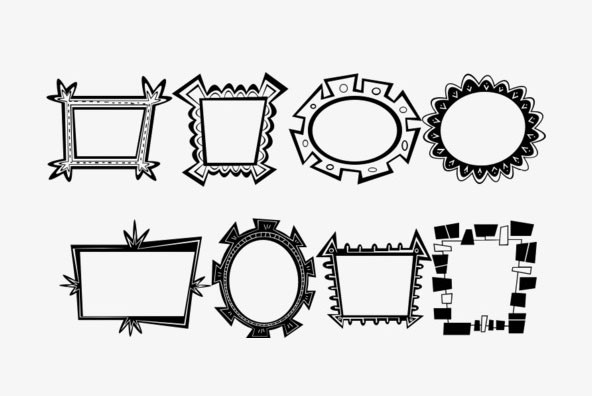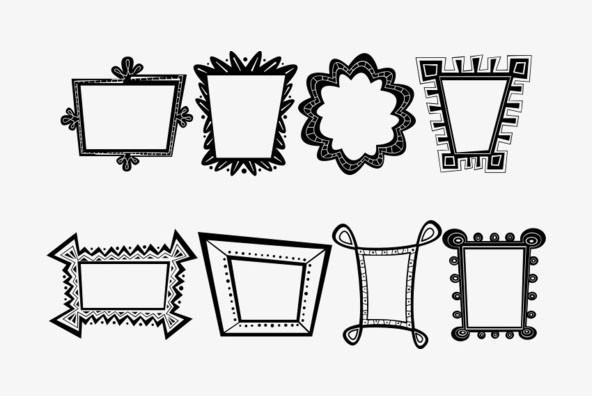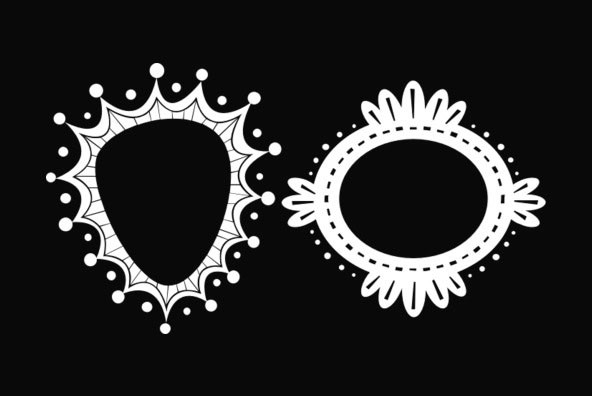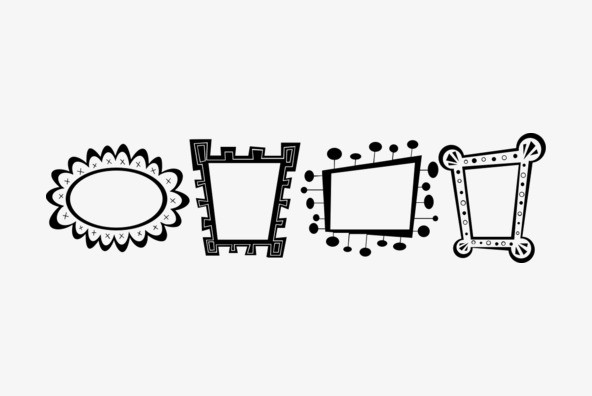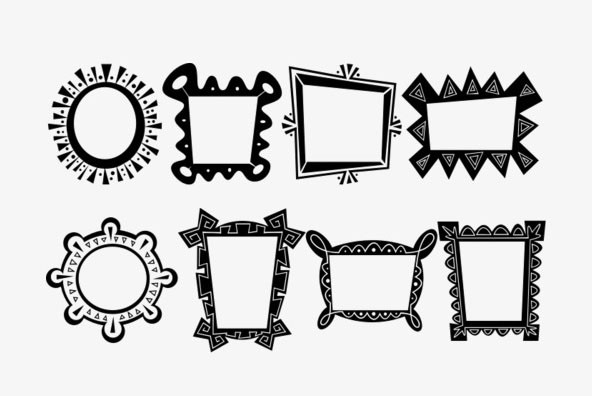
Frame it up with the fun new fancy dingbat family Artsy Fartsies by talented illustrator Jim Steck! With 60 frame styles to choose from, the possibilities are endless!